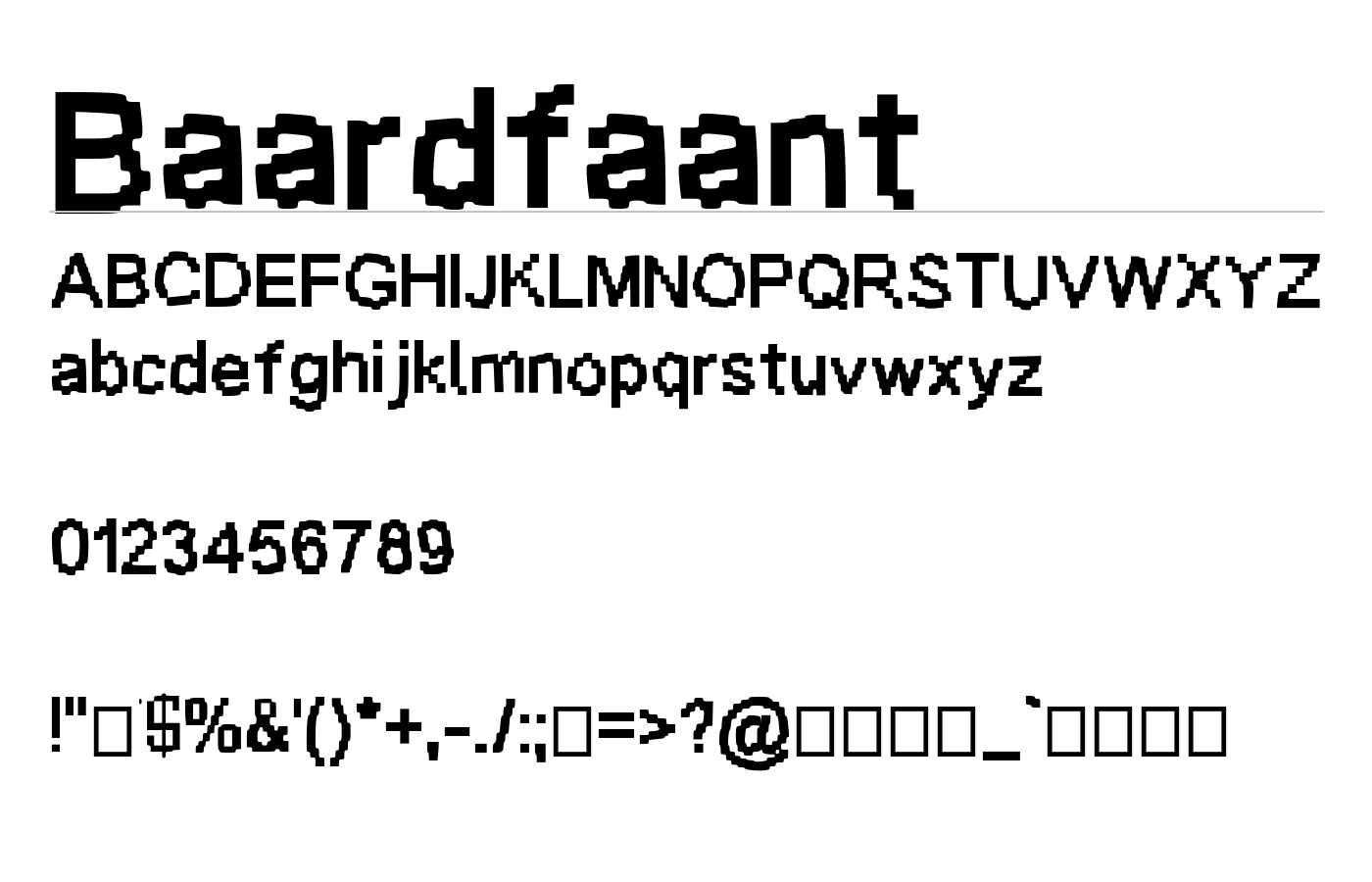
Baardfaant is a bold, blocky sans serif font with a pixelated, digital texture that gives it a tech-inspired and slightly rugged appearance. Its sturdy, geometric letterforms with uniform stroke weight and high x-height make it highly legible, ideal for impactful headlines and digital-themed designs. This font works well for technology branding, video game titles, or any project seeking a modern, edgy, and distinctive style.
Baardfaant Font
About Baardfaant Font